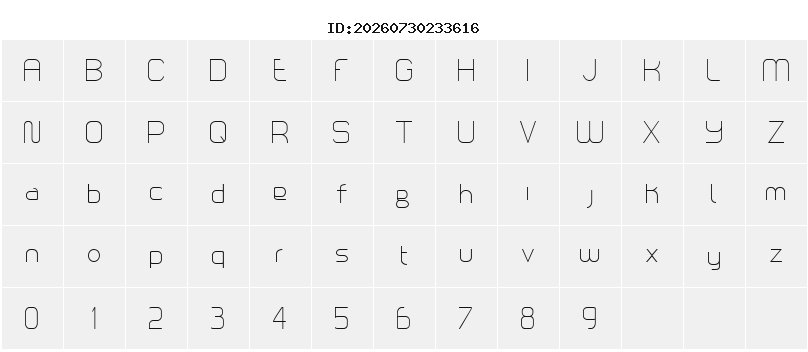
Loomis Sans Preview
• Font Name: Loomis Sans
• Full Font Name: Loomis Sans
• Designer: John Gauthier
• Manufacturer: John Gauthier
About Loomis Sans.ttf
Loomis Sans.ttf is a modern, elegant sans-serif font designed for ultimate readability and visual harmony. Perfect for branding, headlines, web design, and print materials.